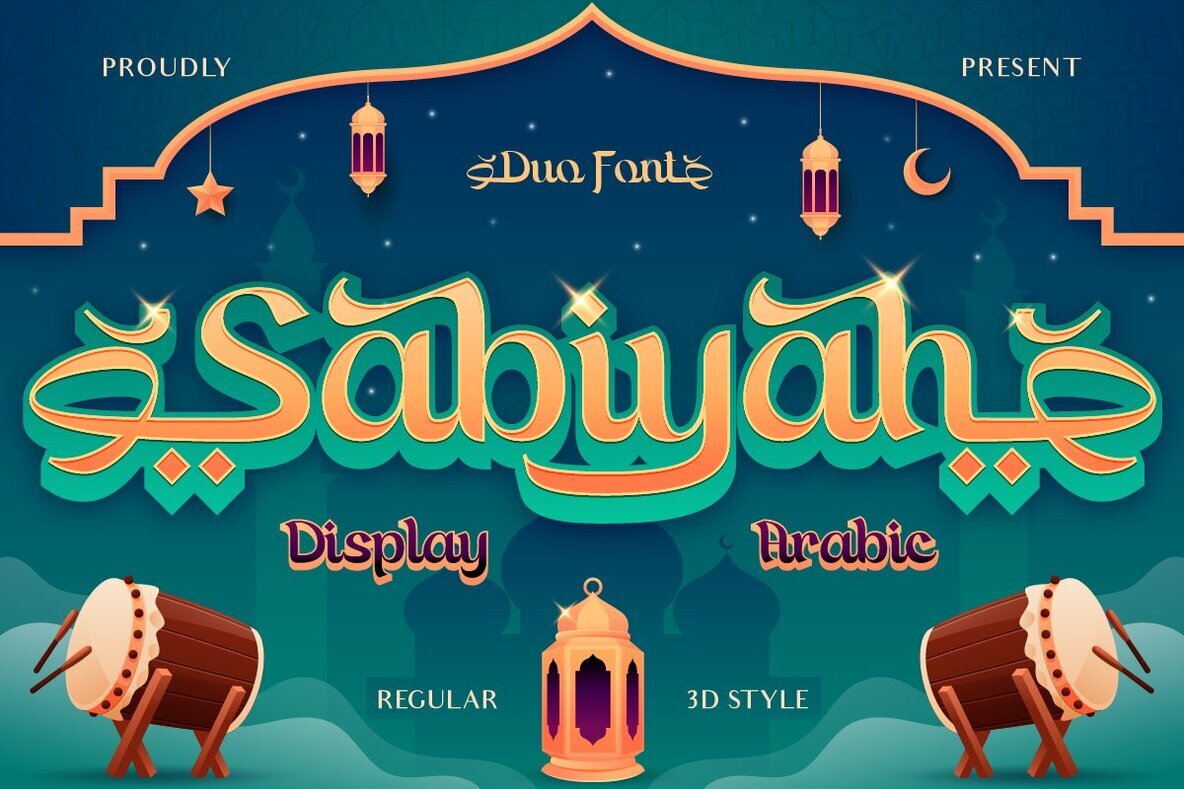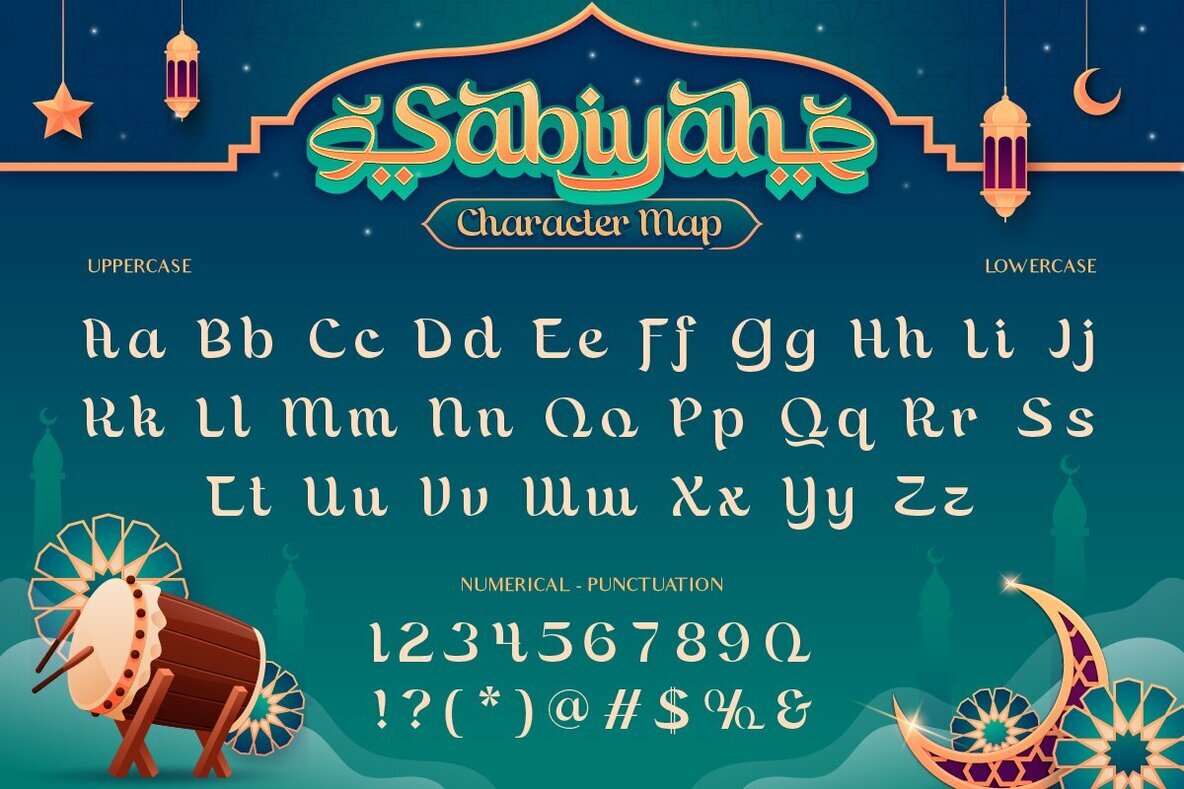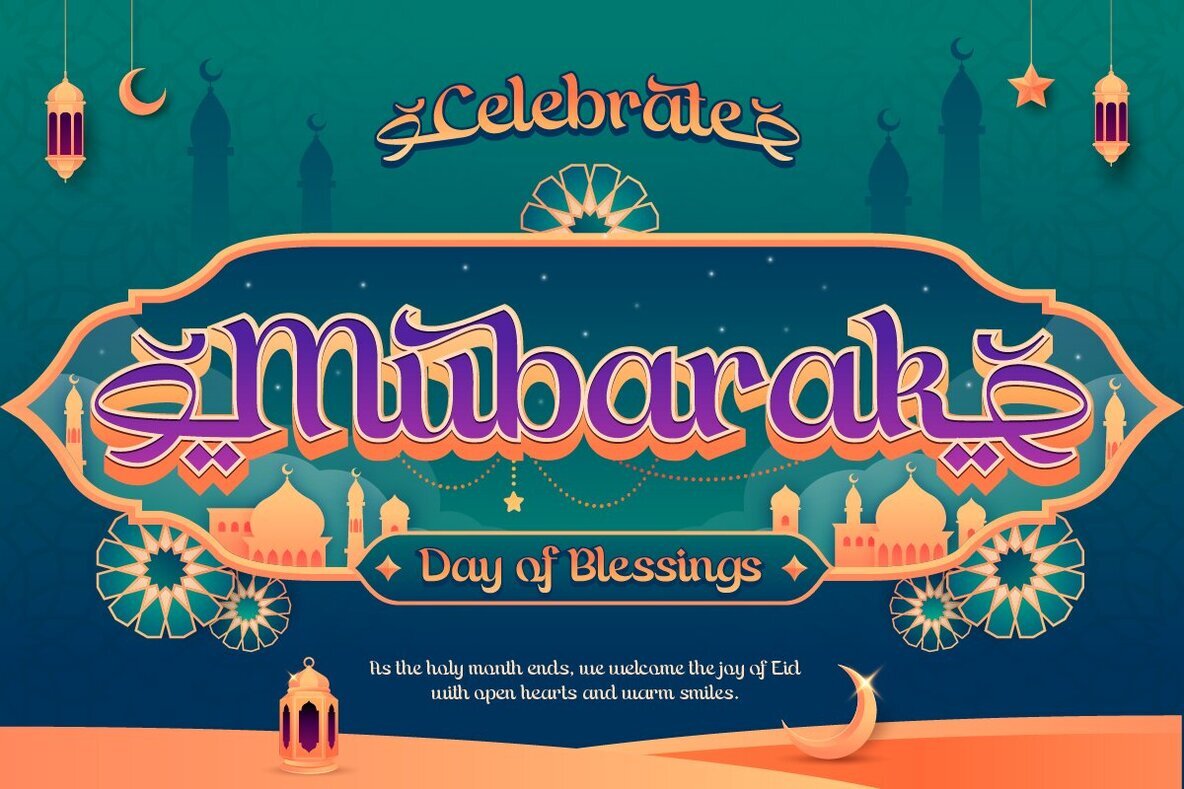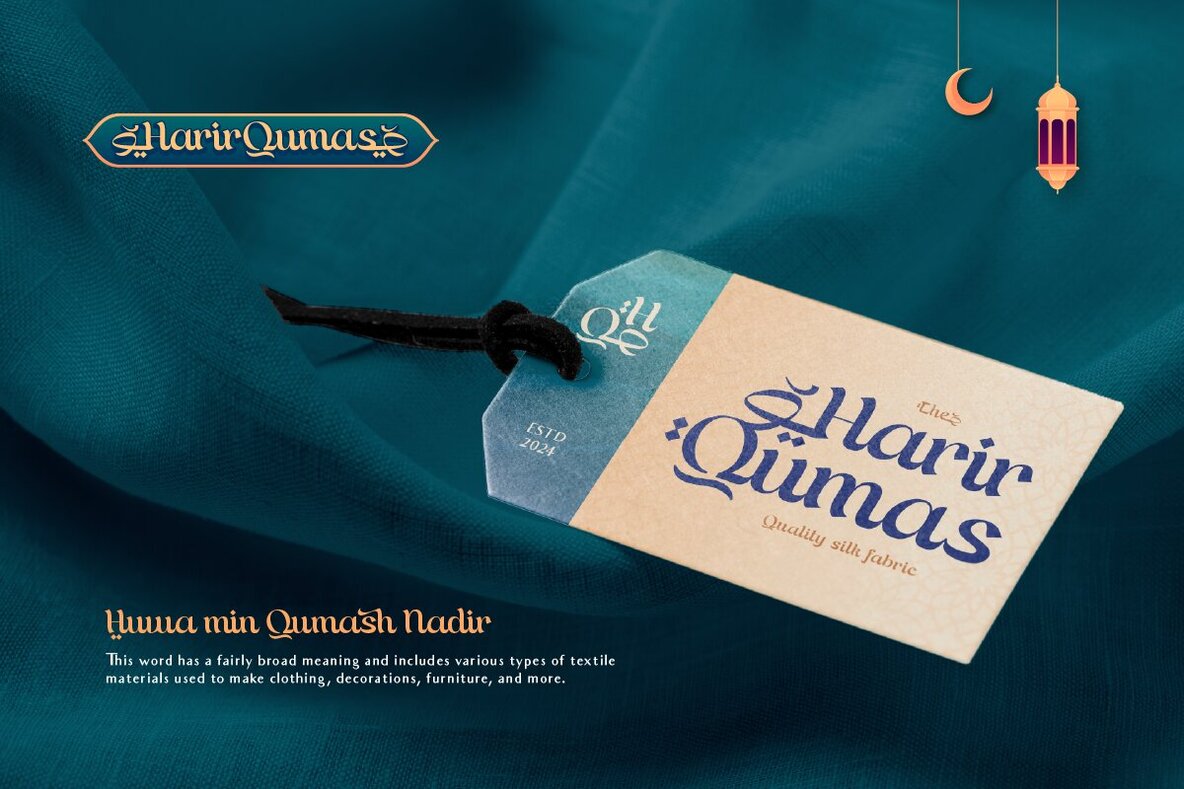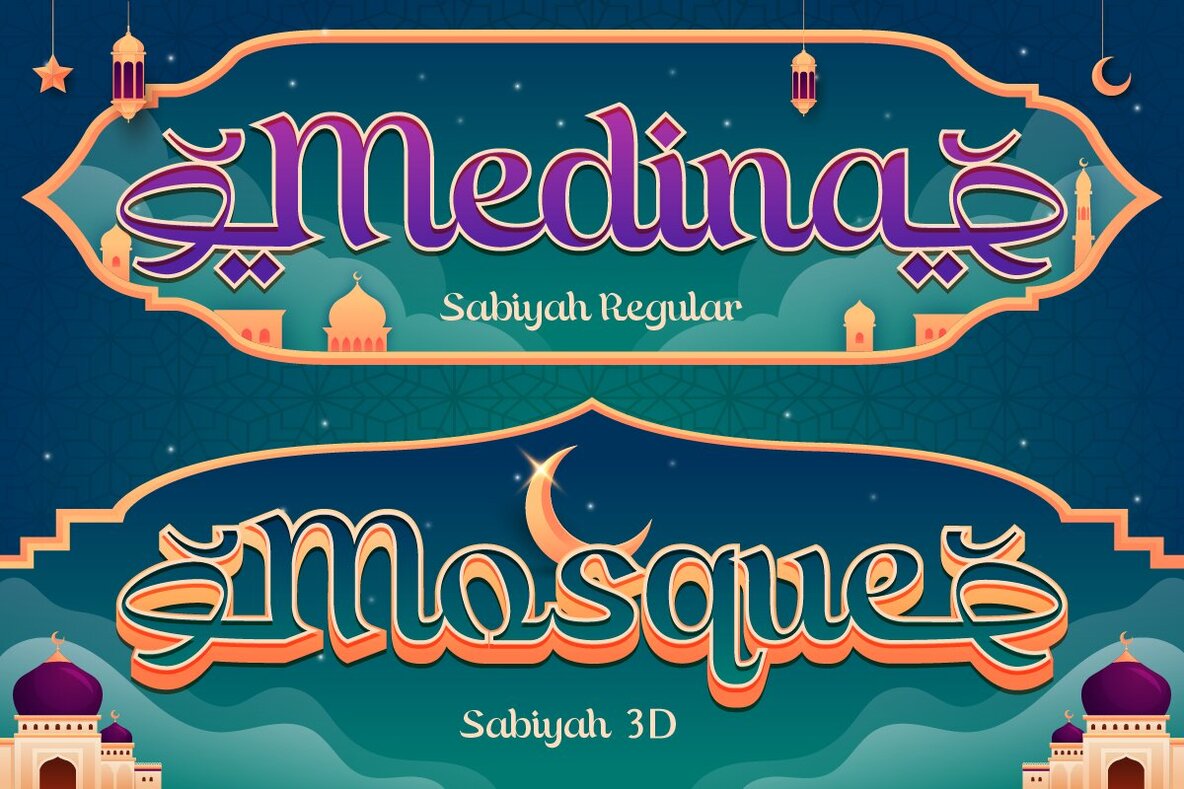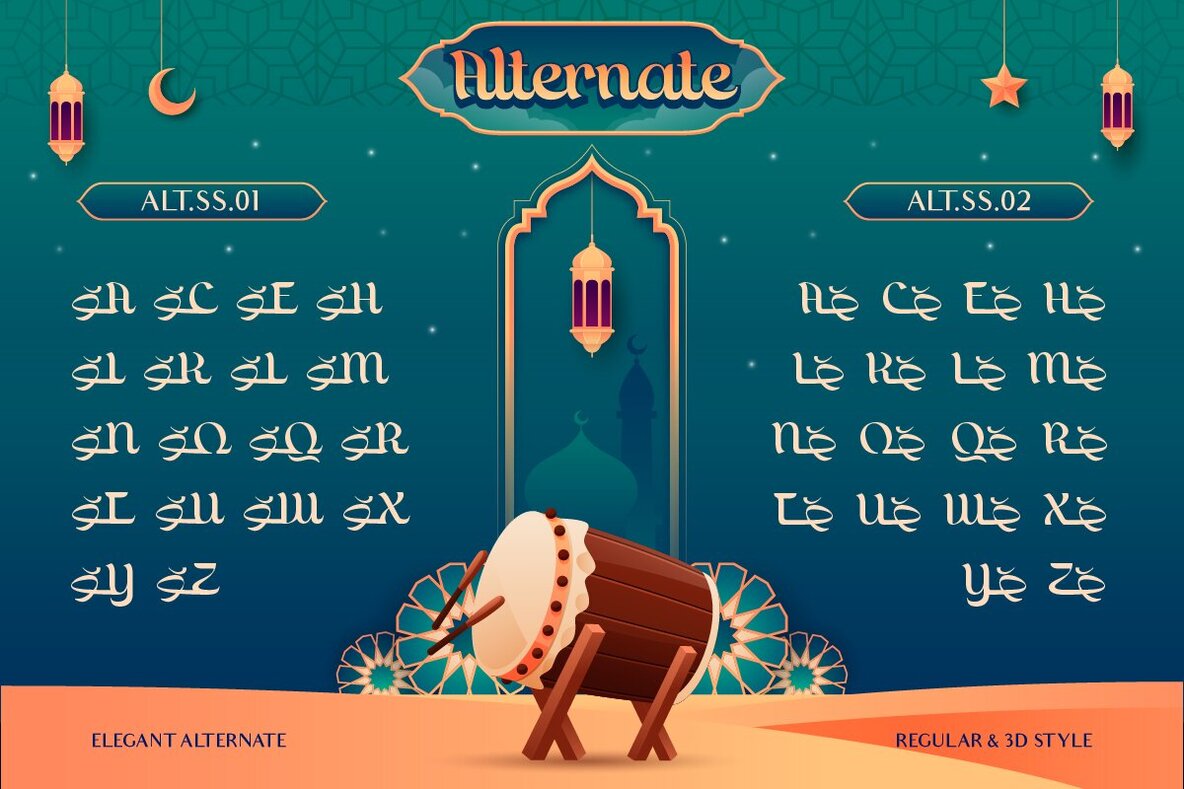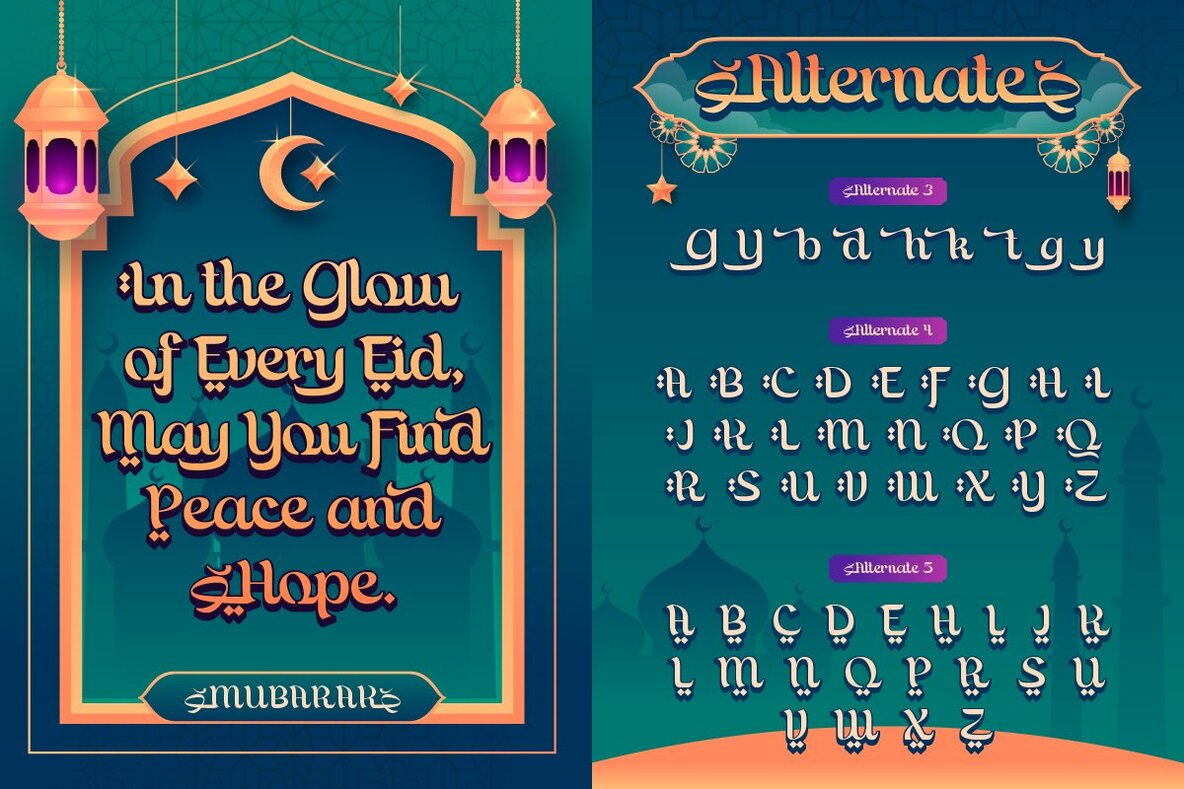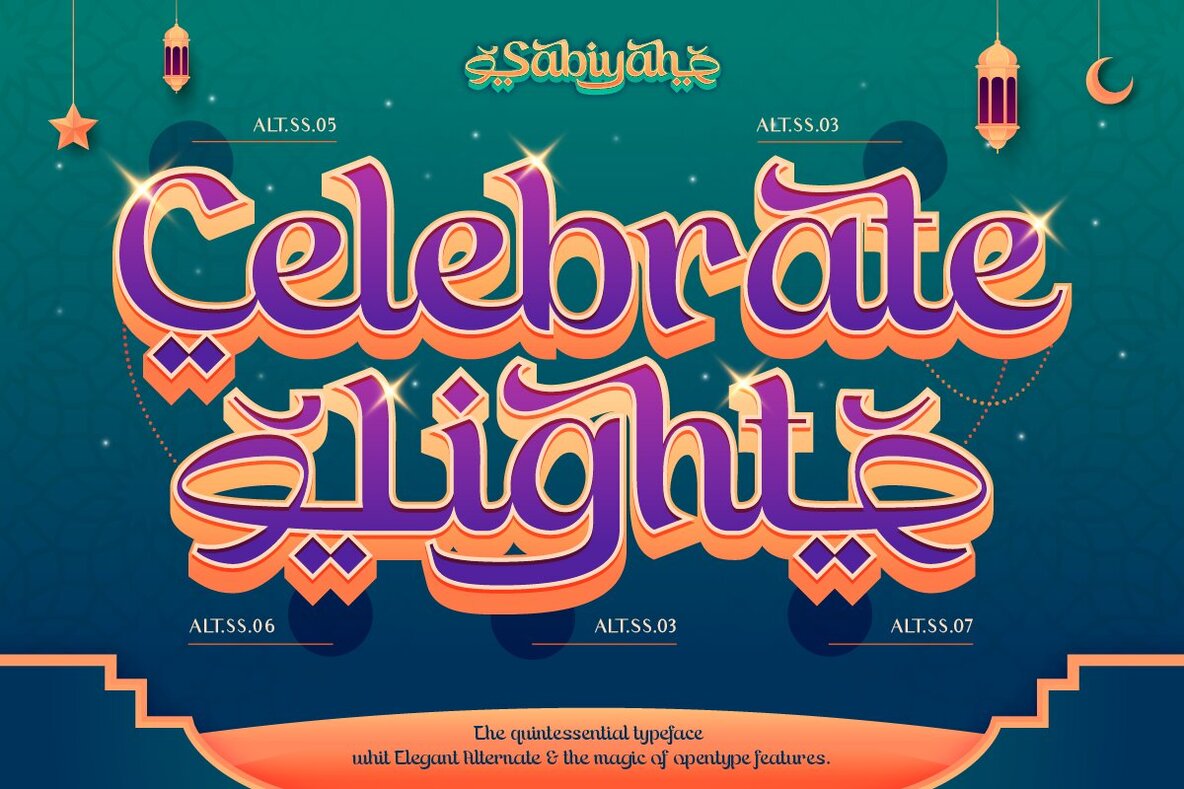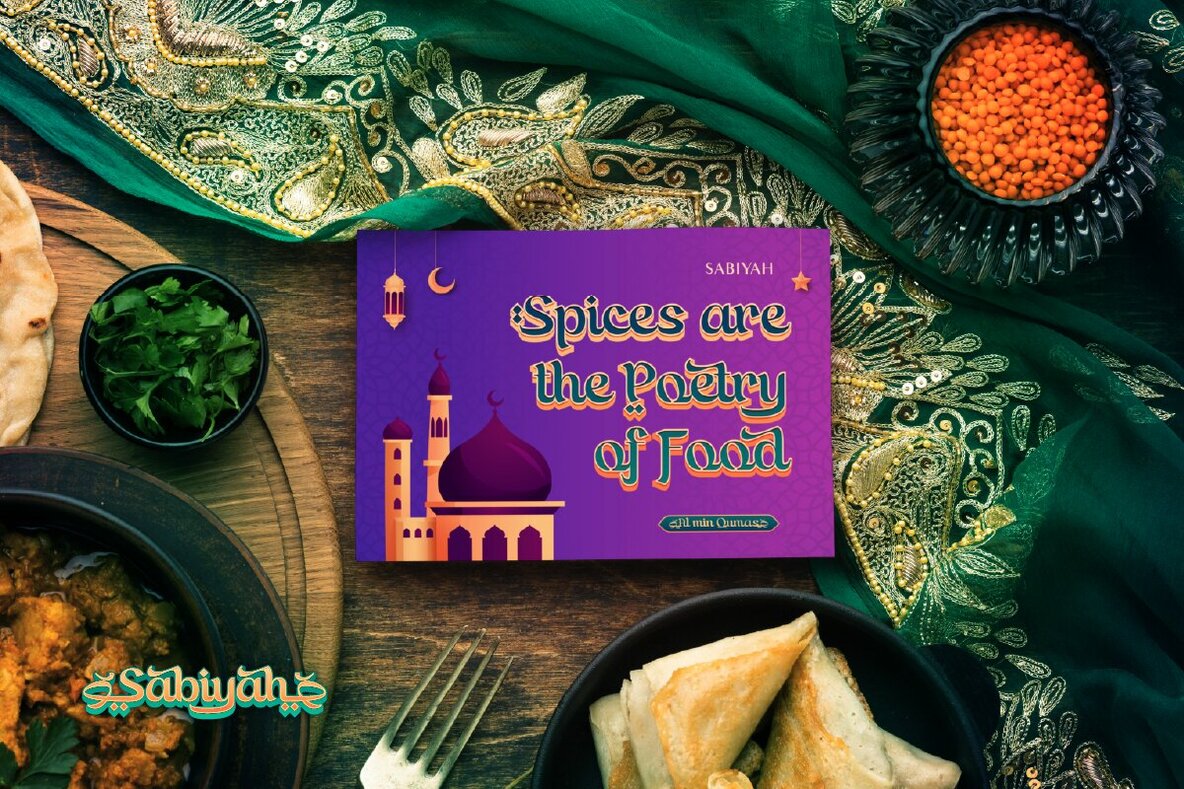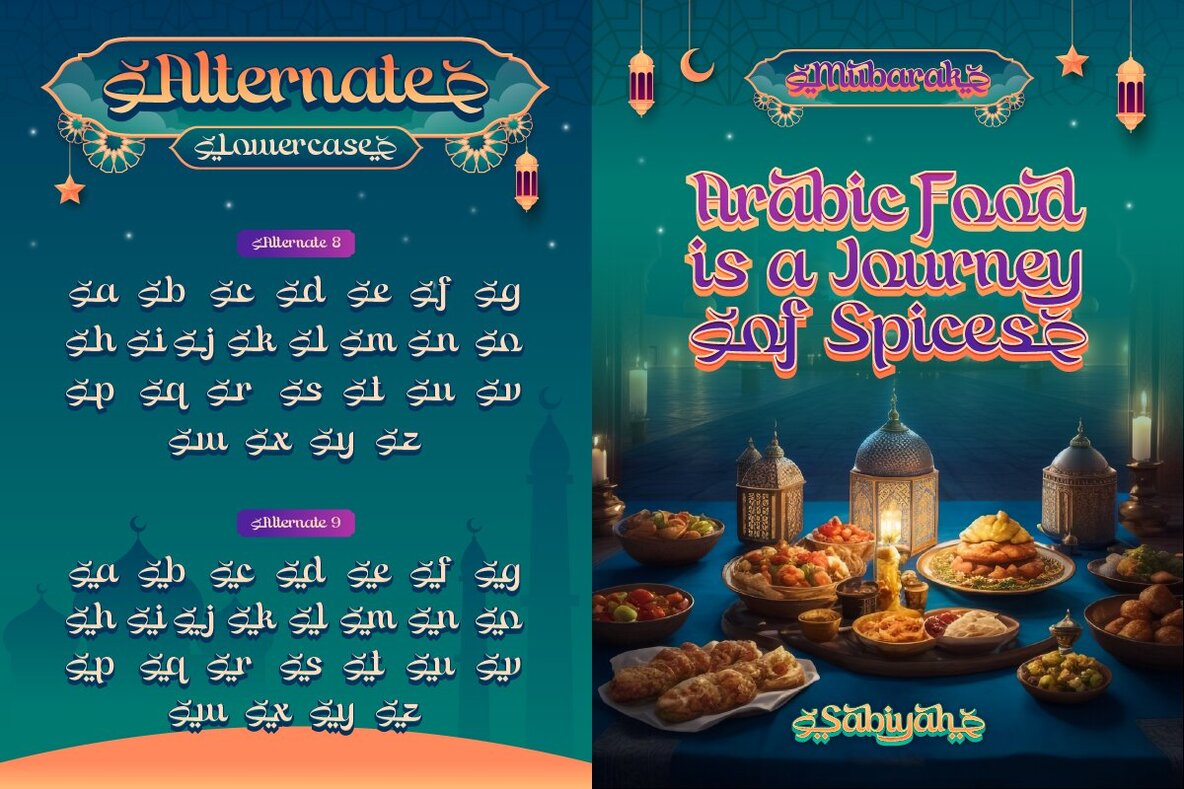
Sabiyah Font
Sabiyah delivers a bold, culturally rich aesthetic ideal for festive design projects. Balancing strong strokes with graceful curves, it adds a warm, inviting presence to Ramadan, Eid celebrations, Islamic events, or any branding that seeks refined elegance with a contemporary twist. Available in Regular and 3D styles, Sabiyah adapts easily to a variety of creative scenarios. Use it to give posters, invitations, social media graphics, or packaging a joyful and meaningful appeal that resonates instantly.Sabiyah Modern Arabic-Inspired Display Font